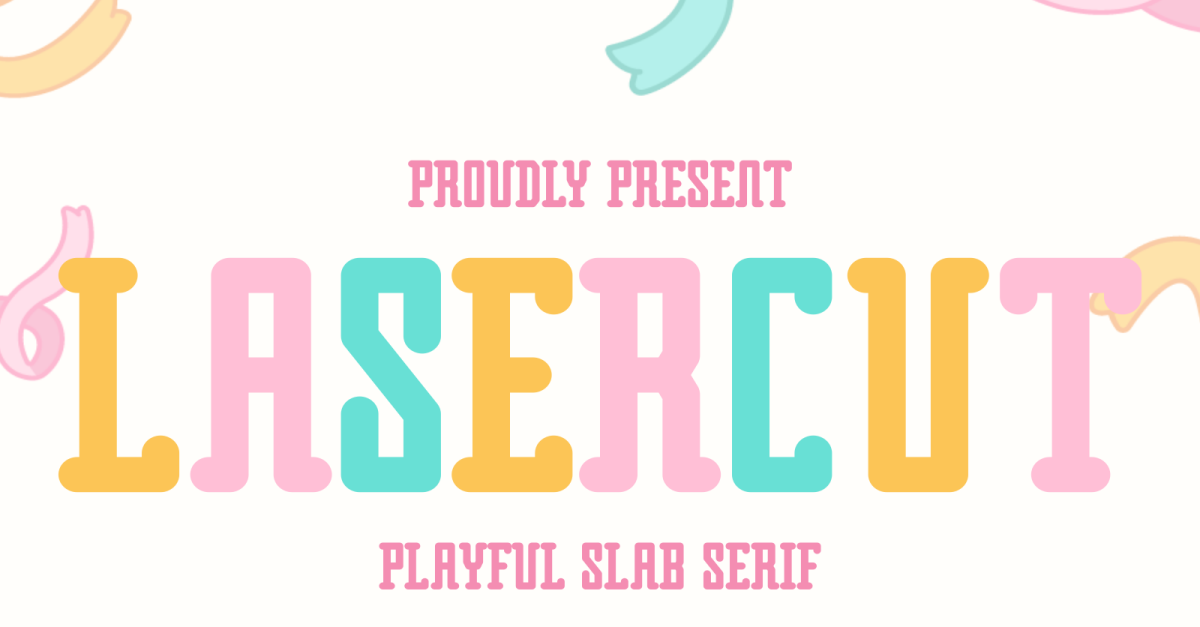
Lasercut - Playful Slab Serif
Lasercut is a playful and highly versatile slab serif font designed with a distinctive, chunky style perfect for crafting and colorful designs. Its wide, bold letterforms feature soft, friendly serifs and a geometric structure, giving it an appealingly sweet and fun aesthetic. Ideal for children's branding, merchandise, packaging, crafting headers, and any project that requires a vibrant, cheerful, and handmade feel. Lasercut is excellent for color-blocking and creative layer effects, making it a standout choice for bright, engaging typography.